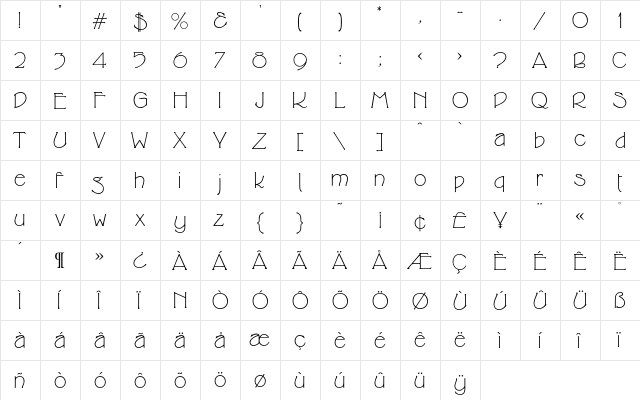
Cupid Regular
Design Context for Cupid Typeface
Cupid offers clean, dependable letterforms without strong stylistic allegiance, making it a practical choice for designers who need flexibility.
Pro Tip: Pair Cupid with a font of contrasting weight or personality to build a more expressive typographic hierarchy.